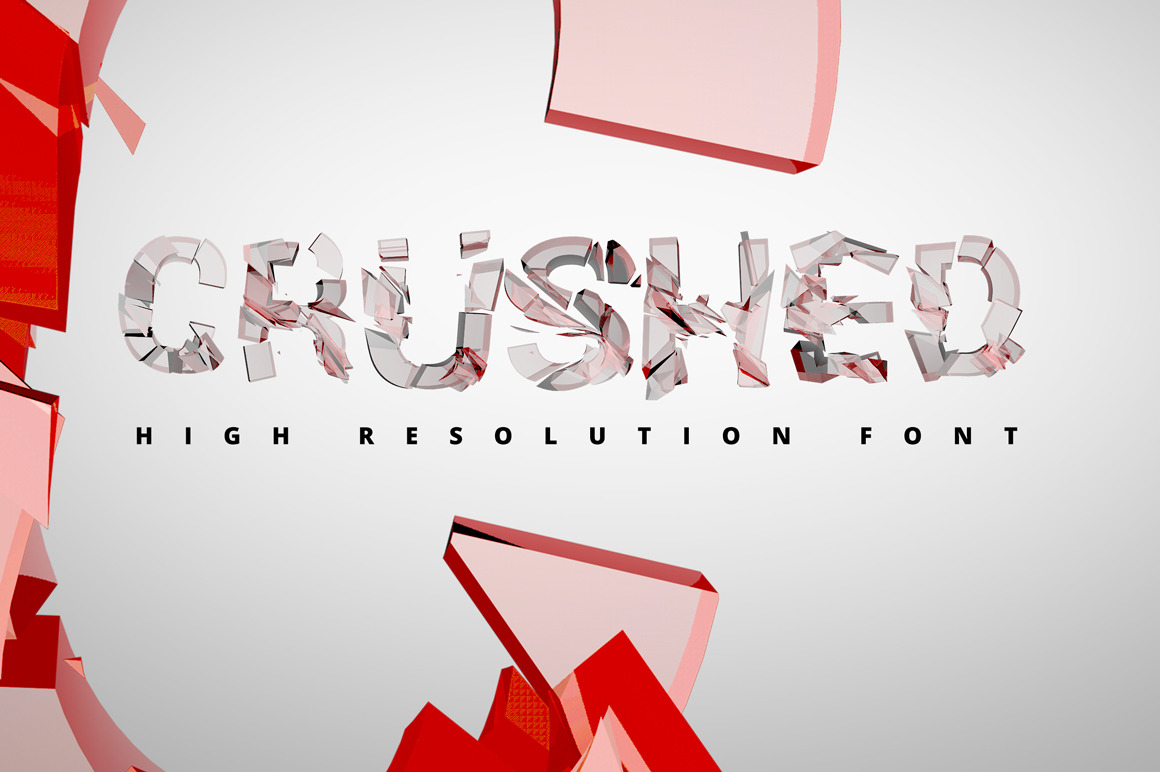
Crushed Transparent Font
The Colorful crushed font is ready!
This alphabet comes as 33 individual PNGs with transparent backgrounds so they can be set over any color. 26 letters + 7 extra symbols will give you full option to create an amazing and original product! You can use PNG transparent letters or modify it and create your own color composition.